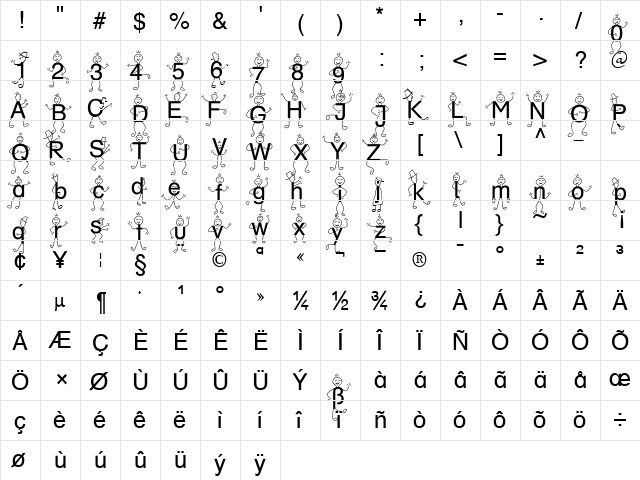
SP DR BY 3 DB Normal
Design Context for SP DR BY 3 DB Typeface
SP DR BY 3 DB is a composed and adaptable typeface that performs quietly and consistently across a wide range of design contexts.